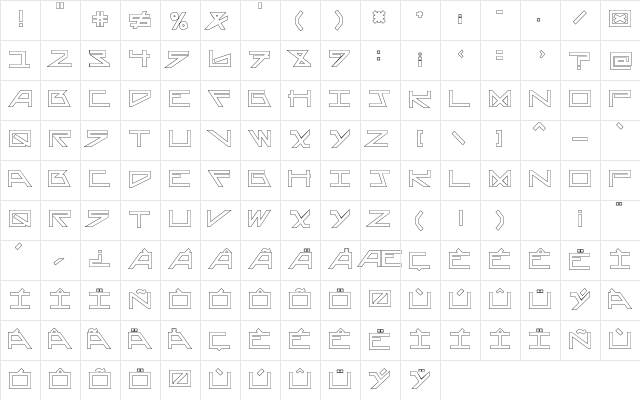
AsteriskHollowBold Regular
Design Context for AsteriskHollowBold Typeface
AsteriskHollowBold is a composed and adaptable typeface that performs quietly and consistently across a wide range of design contexts. Its bold stroke weight gives it real presence on the page.